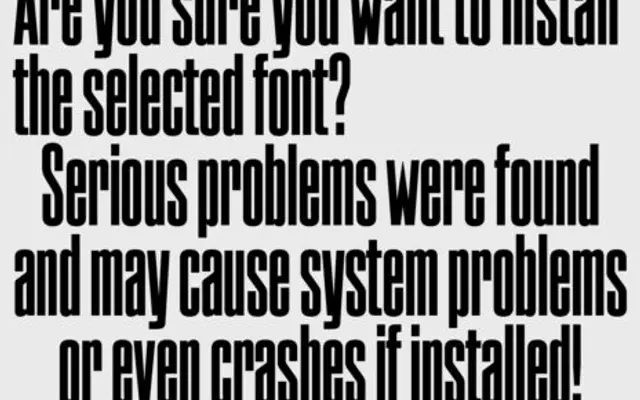
ES Nein
A single-weight extra-bold condensed display face by Alex Dujet, reinterpreting the visual language of nineteenth-century wood types with two stylistic sets.
Drawn from wood type heritage, the design offers stark diagonal features in its default set and a softer ink-trap variant that reduces contrast across its very black forms. It has been used in commissions for the New York Times Magazine and projects within alternative culture. Coverage extends across Latin Extended-A, supporting a broad range of European languages.
An extra-bold, highly condensed single-weight display face drawing directly from the heritage of nineteenth-century wood types, with diagonal features and ink trap variants characteristic of that tradition.